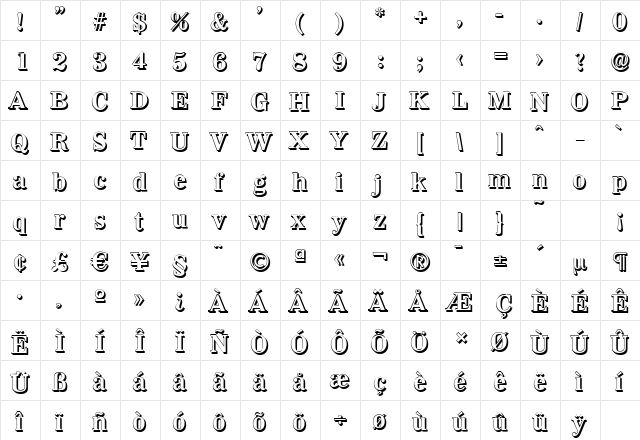
WichitaShadow Bold
Design Context for WichitaShadow Typeface
WichitaShadow is built around its visual character rather than neutral utility — its distinctive forms are designed to make an impression at display sizes. The heavy weight commands attention and anchors typographic hierarchies.
Font Pairing: Pair with a clean neutral sans-serif for body copy to let WichitaShadow's character lead without overwhelming the composition.
Pro Tip: Use WichitaShadow exclusively at display sizes — it was designed to be seen, not read at length. Let a neutral companion handle body copy.